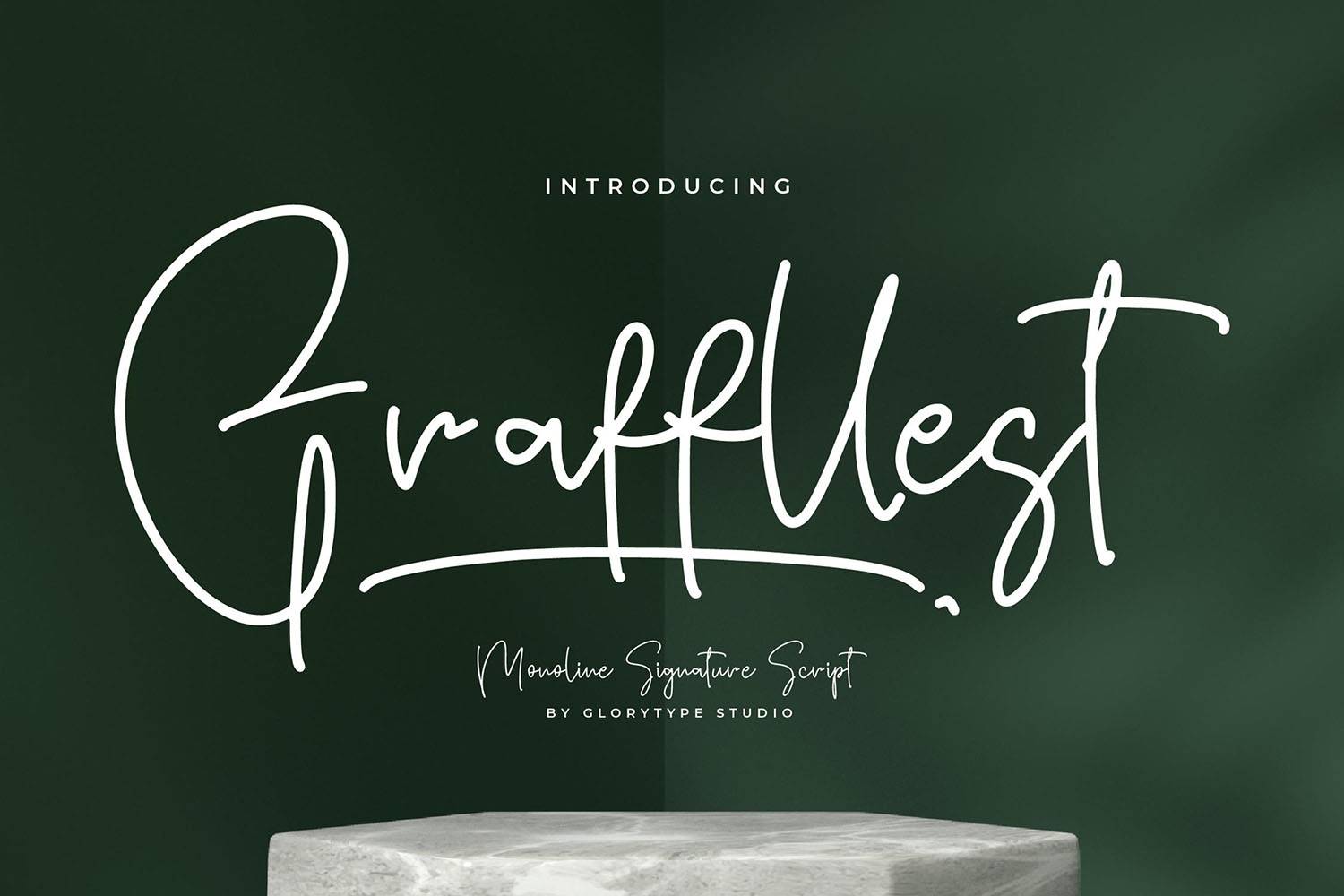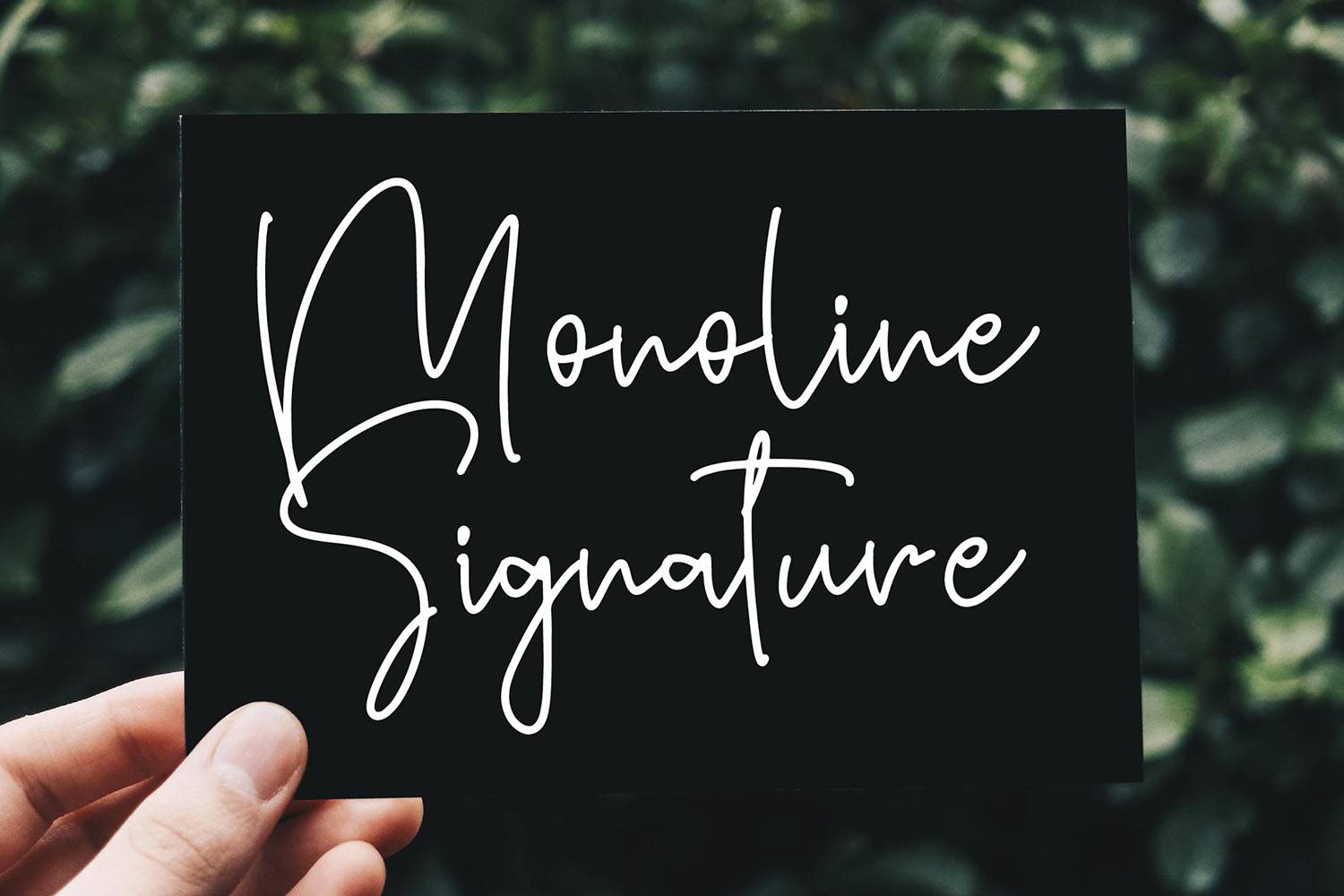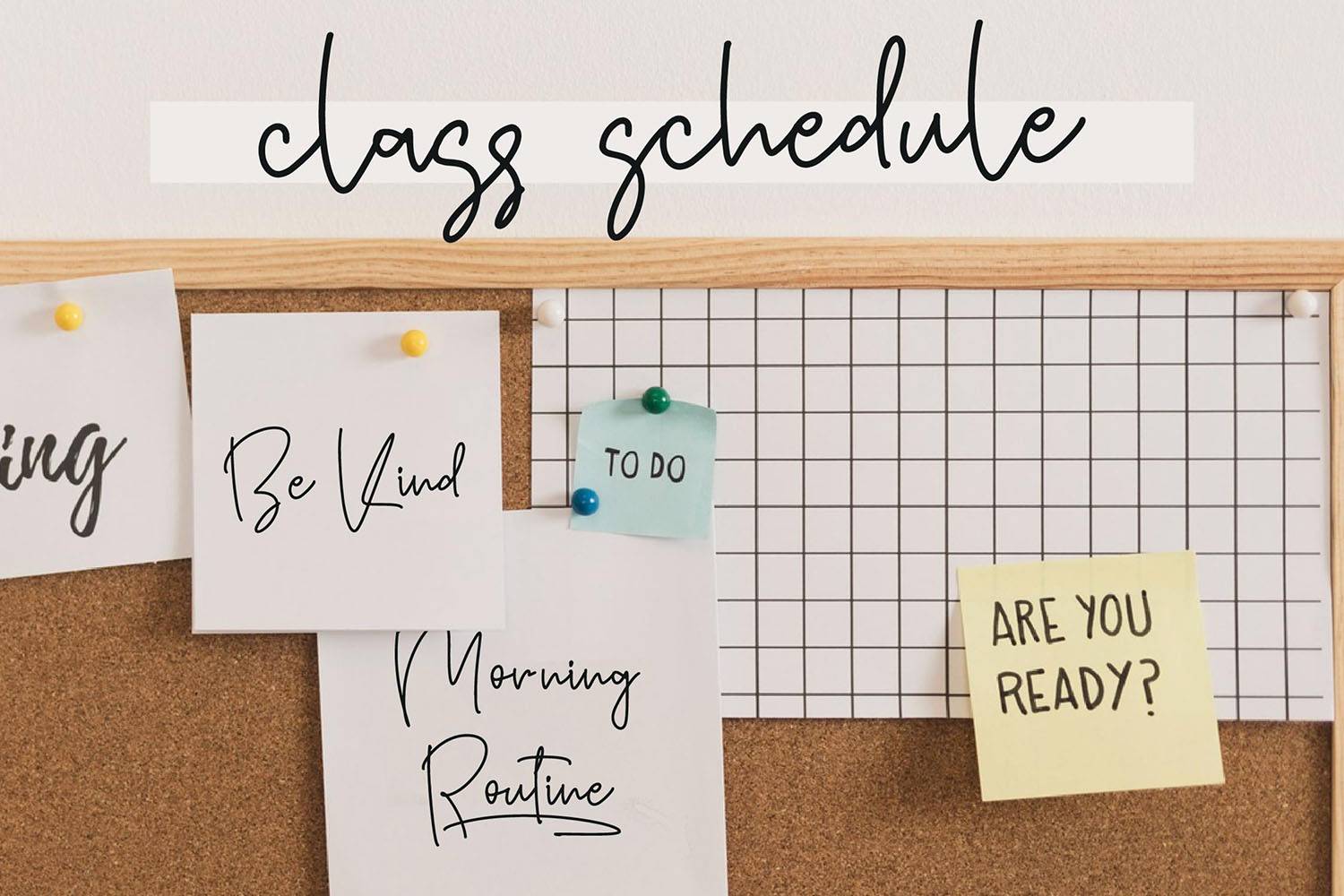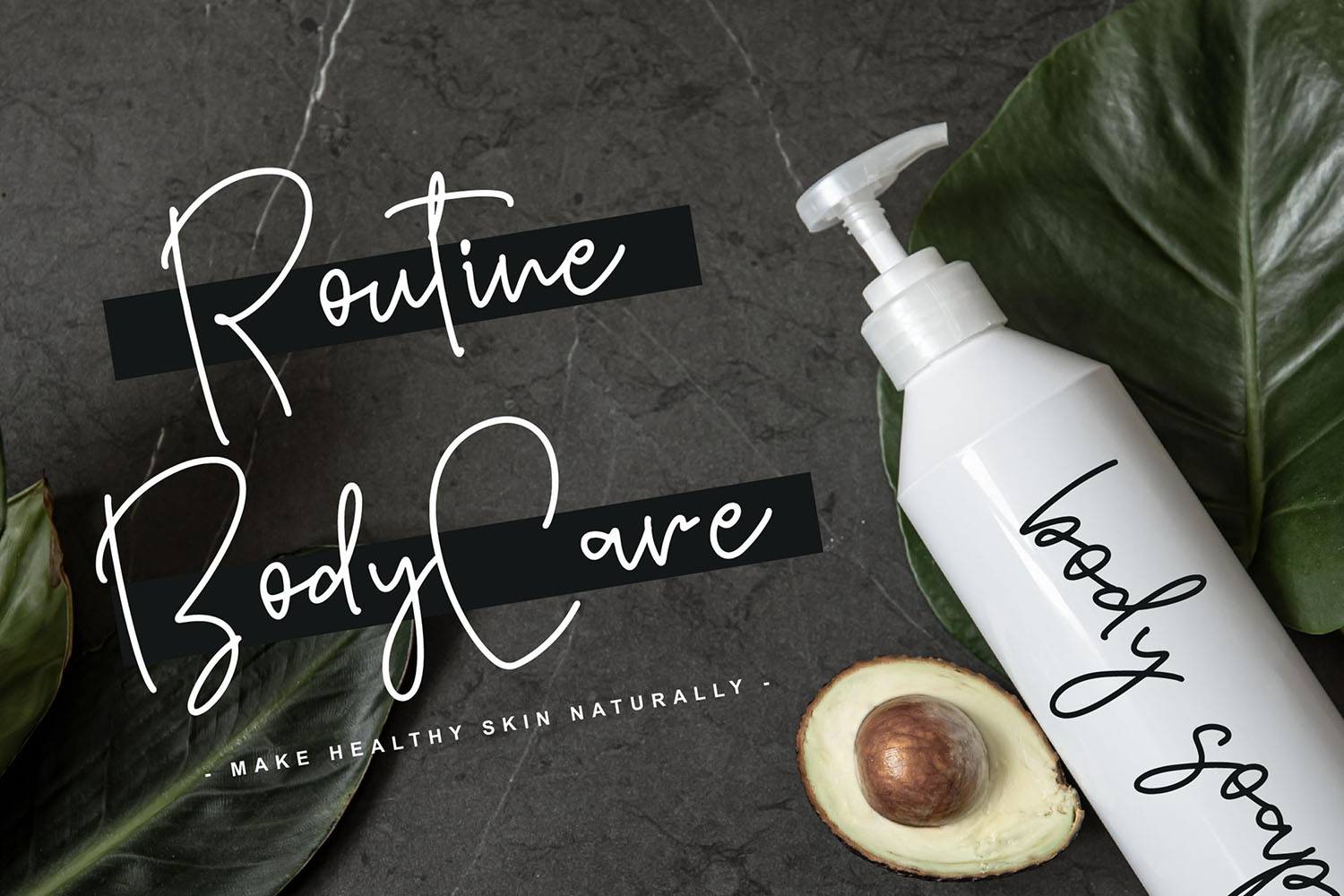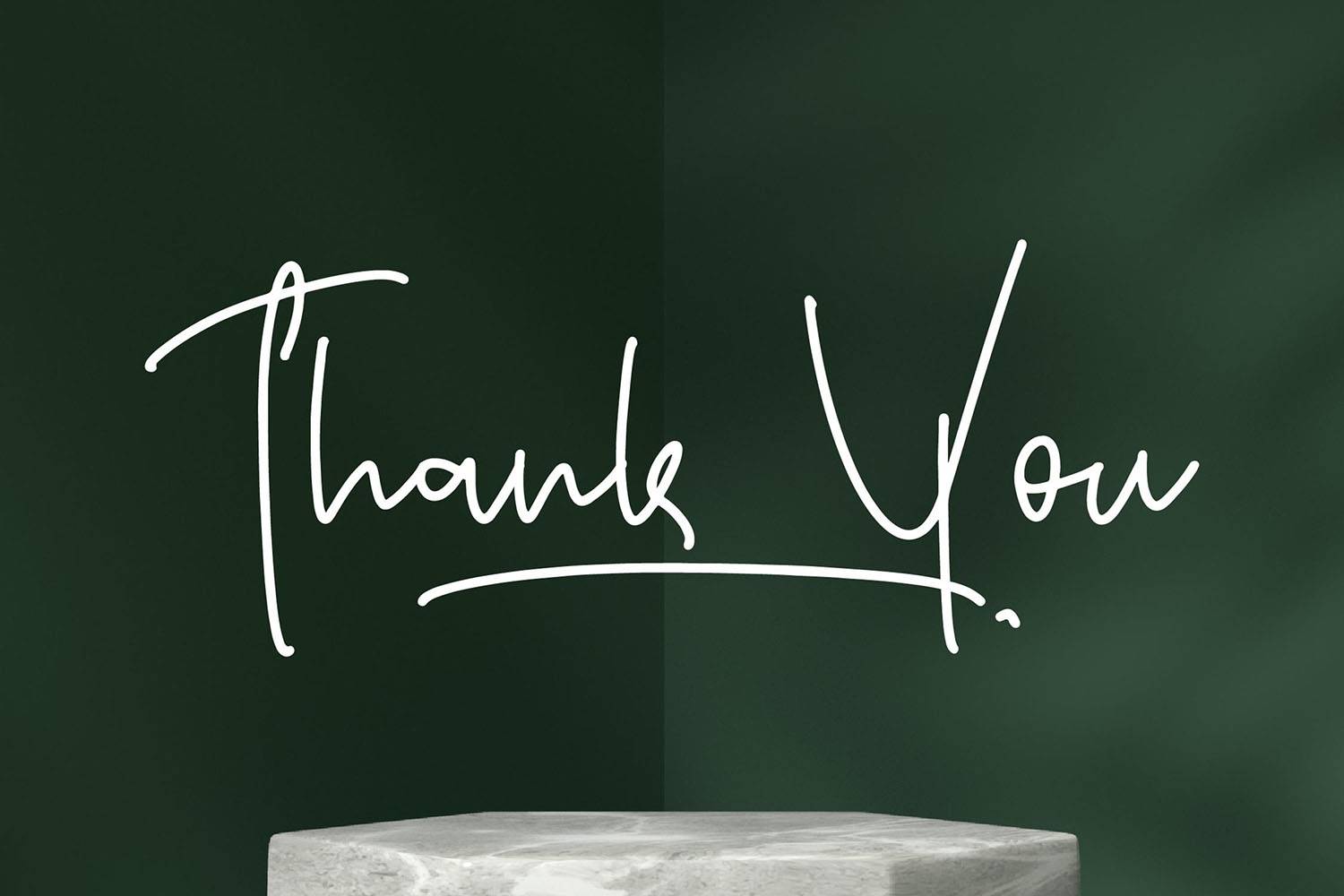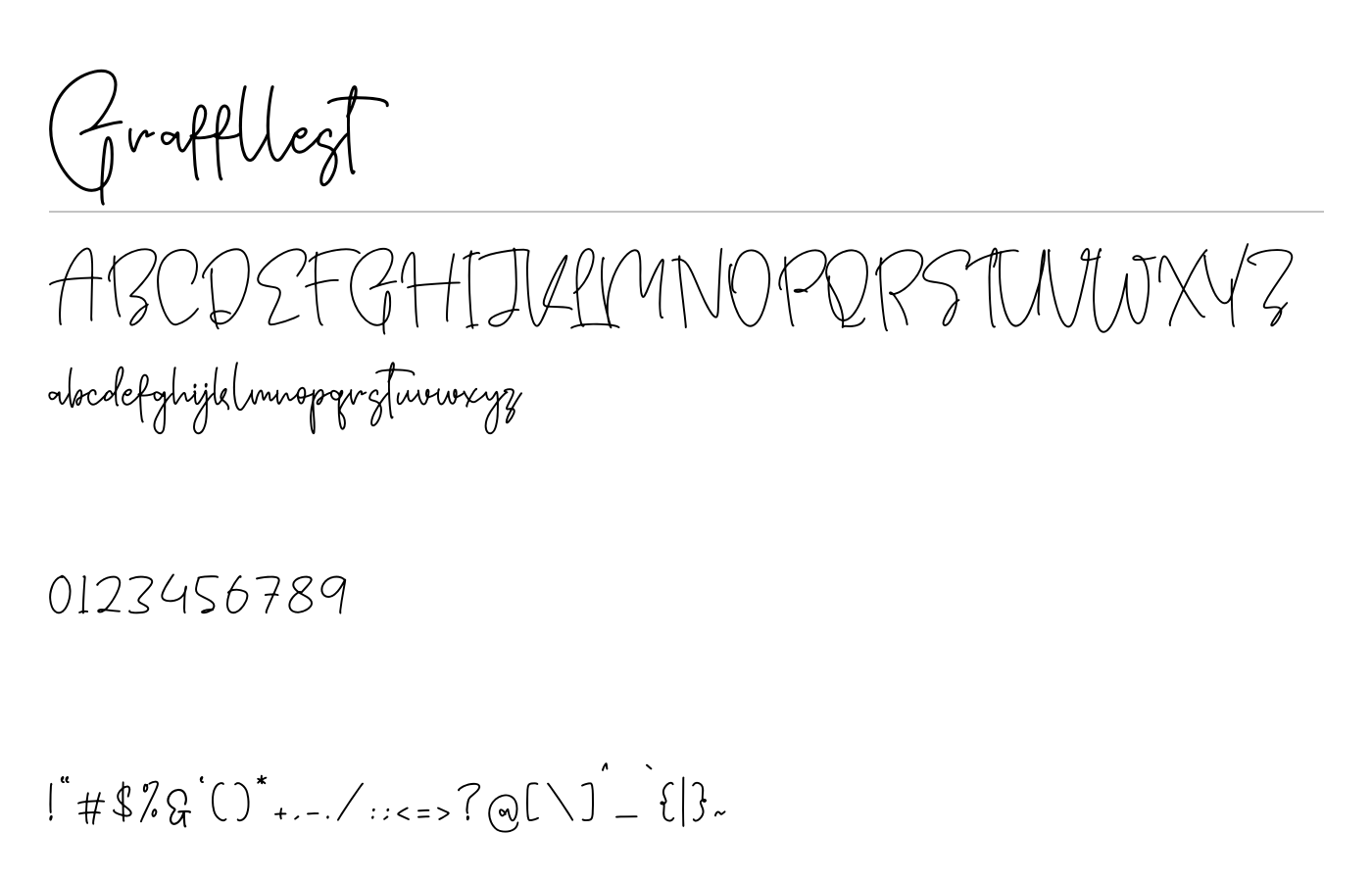
Graffllest is a delicate, handwritten script font with tall, narrow letterforms and a light, airy feel. Its irregular strokes and playful loops create a casual yet elegant vibe, perfect for adding a personal touch to branding, invitations, and creative projects. This font works well where a charming, artistic impression is needed without overpowering the design.
Graffllest Font
About Graffllest Font